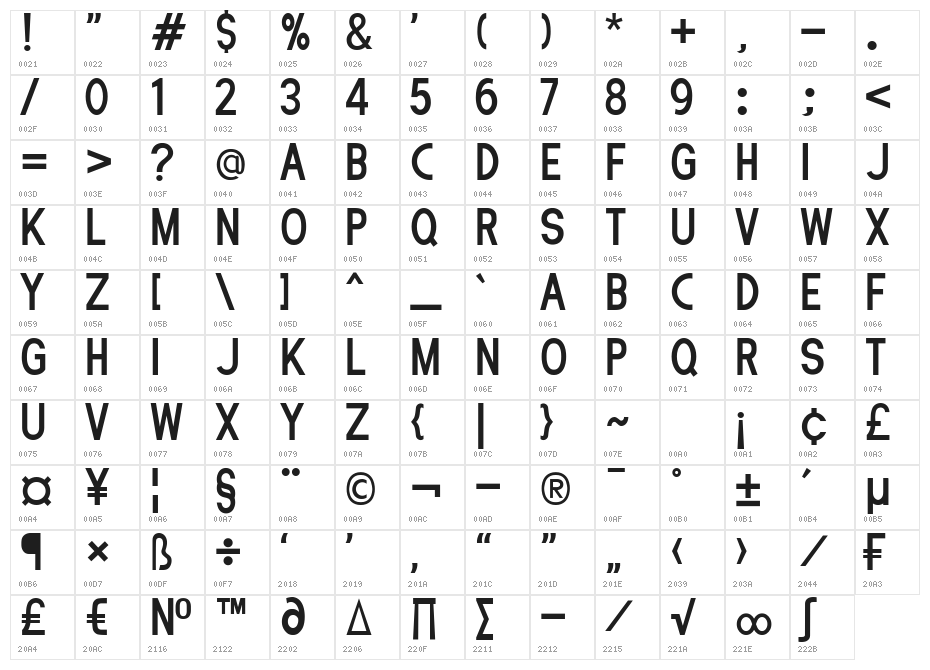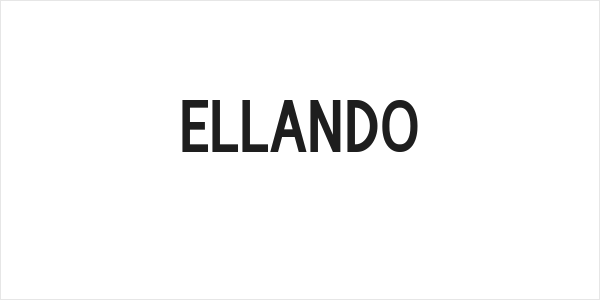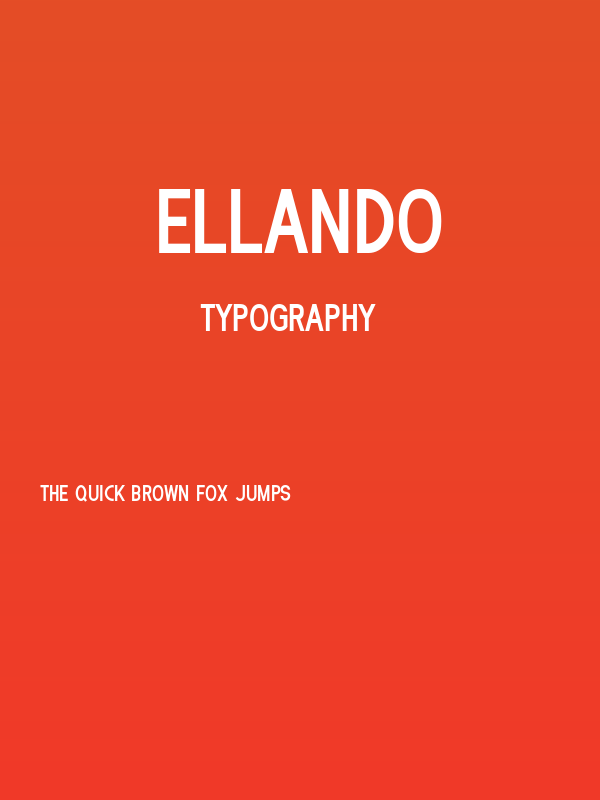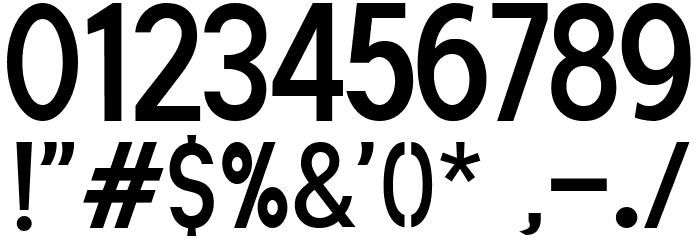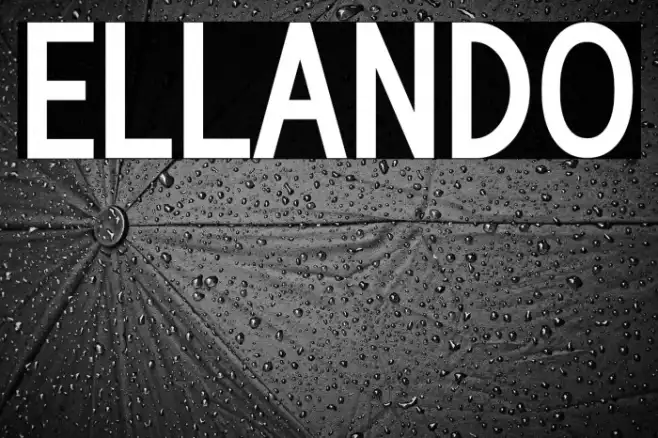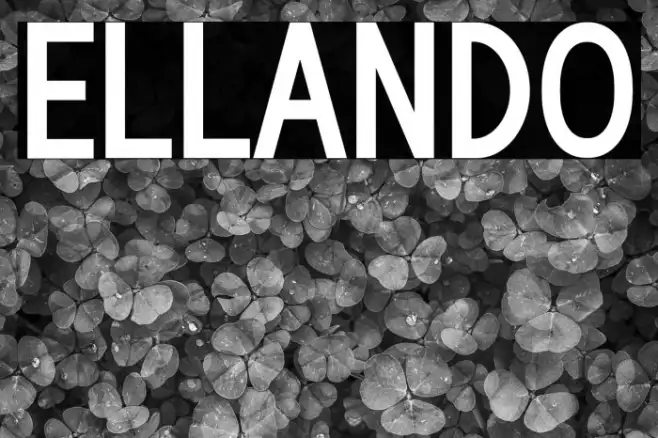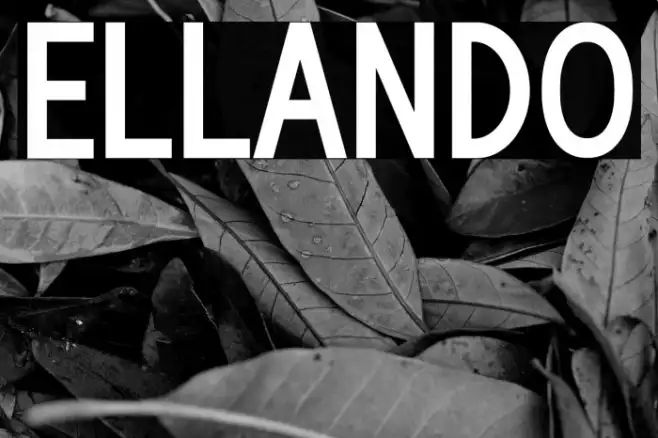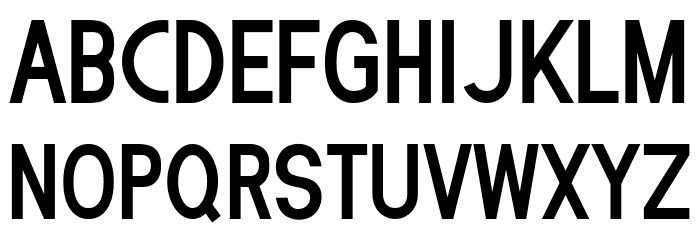
Ellando Font
Ellando Description
This font features a clean and modern sans-serif design, characterized by its bold and uniform stroke weight. The characters are well-proportioned with a consistent height, offering a strong and impactful appearance. The uppercase letters are straightforward and geometric, while the lowercase letters maintain a similar structure, ensuring readability and clarity. The numerals are distinct and align well with the overall style, making them suitable for various applications. The special characters are designed to complement the alphabet, maintaining the font's cohesive look.
| Proposed Projects | Ideal for branding, advertising, headlines, and digital media where a strong and modern presence is desired. |